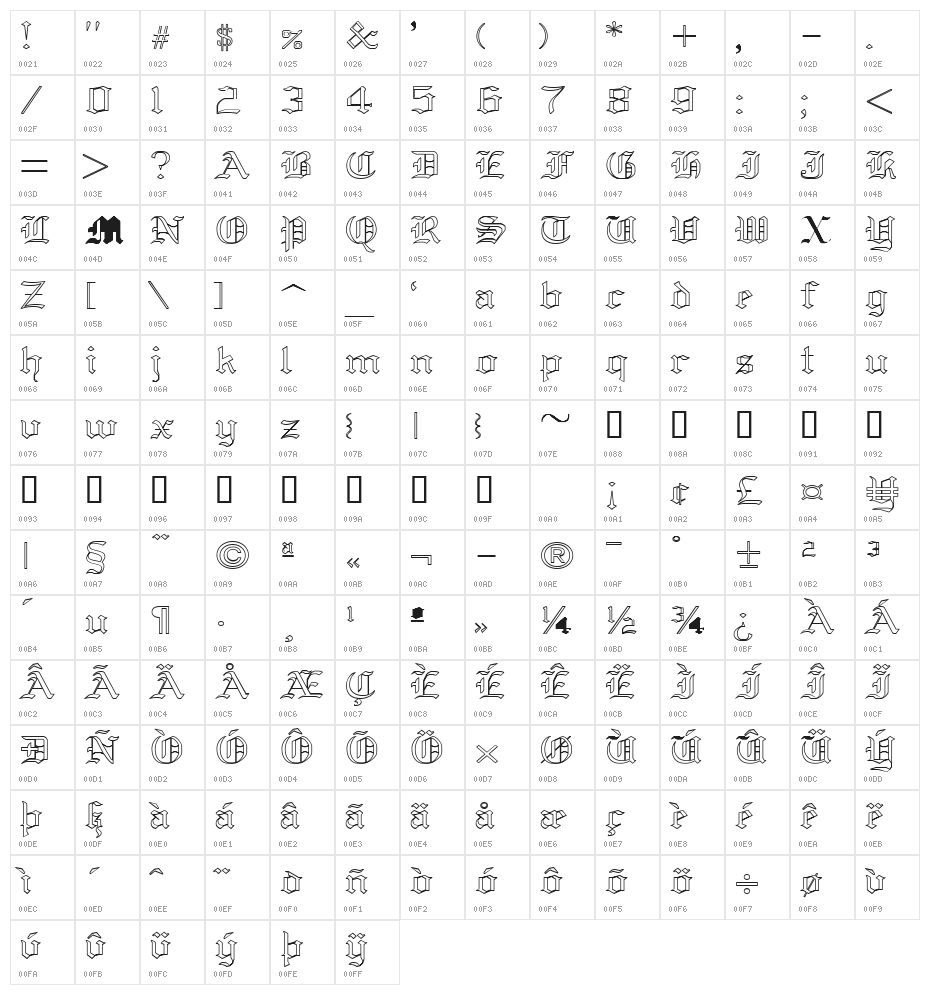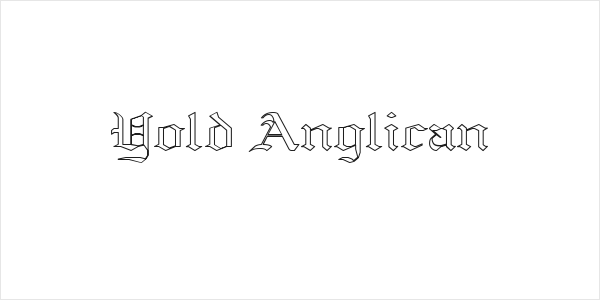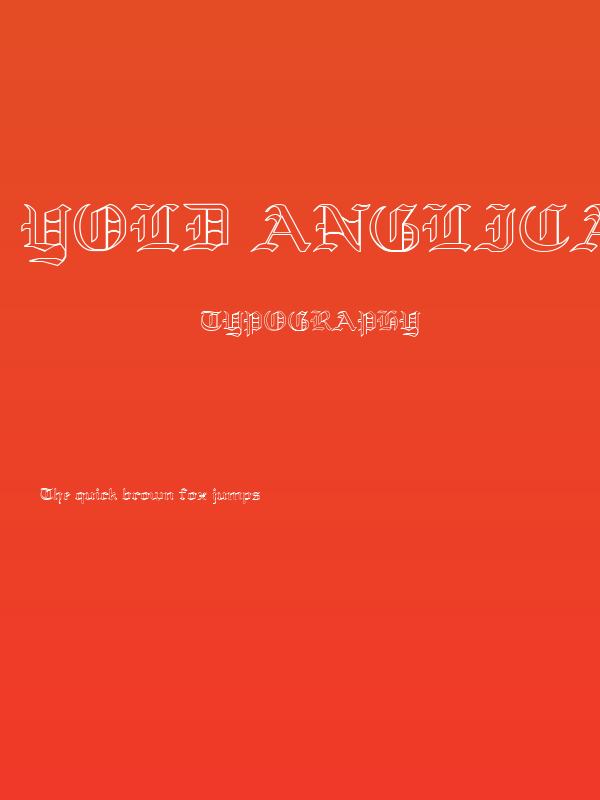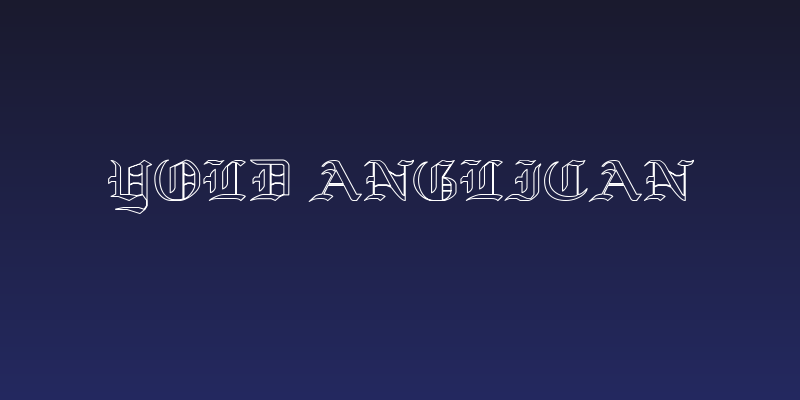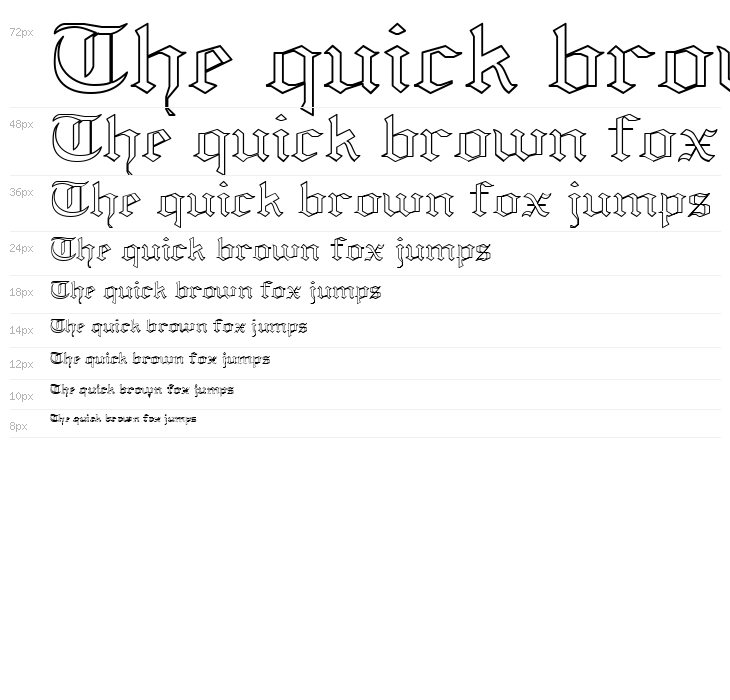
Yold Anglican Font
Yold Anglican Description
This font exhibits a classic blackletter style, characterized by its intricate and angular letterforms. The uppercase letters are bold and ornate, with sharp edges and a medieval aesthetic. The lowercase letters maintain the same intricate design, offering a cohesive look throughout. Numbers and special characters are crafted with the same attention to detail, making them stand out with their unique and elaborate shapes. The overall appearance is reminiscent of traditional Gothic script, often associated with historical and formal contexts.
| Use Case | Headlines, Logos, Decorative text |
| Proposed Projects | Ideal for historical documents, certificates, wedding invitations, or any project requiring a traditional and formal look. |